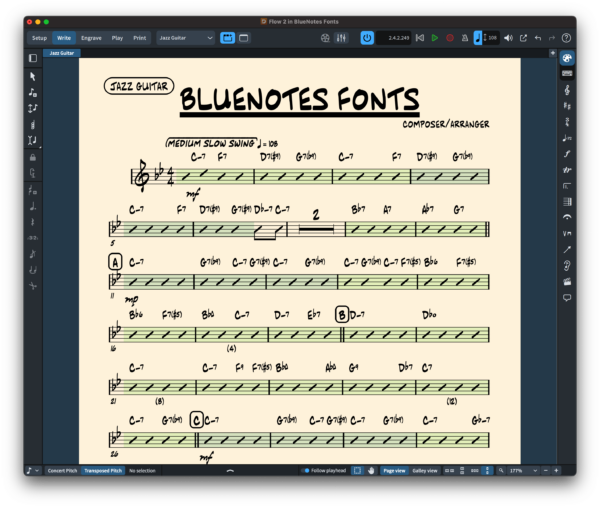
Meet BlueNotes: Handwritten SMuFL Fonts for Professional Jazz Scores
A bold handwritten music font package for Dorico, Finale v27+ and MuseScore 4.6+ — designed to bring the RussMusic-like spirit of classic West Coast copyists and Broadway jazz charts into modern notation workflows.
The Classic Jazz Copyist Look, Rebuilt for SMuFL
Some notation styles immediately say jazz. The slightly irregular lines, confident noteheads, boxed rehearsal marks, slashes, handwritten chord symbols and energetic text all work together to create a page that feels ready for the stand. BlueNotes was created for that world.
BlueNotes gives your scores the warm, practical and unmistakably handwritten character of classic Broadway and West Coast copyist notation while keeping the benefits of modern SMuFL engraving.
This is not just a decorative typeface. BlueNotes is a professional handwritten music font package for real notation work. It includes two compliant SMuFL music fonts and six matching jazzy text fonts, giving your music symbols and score text a consistent visual identity. For a more direct hand-copied jazz-chart style, compare RealScore handwritten music fonts.
BlueNotes SMuFL handwritten music font used in a jazz guitar chart
Example 1 — Jazz guitar chart. BlueNotes gives lead-sheet and rhythm-section notation a strong handwritten jazz identity with slashes, chord symbols, boxed letters and score text working together.
With more than 1400 music symbols and a RussMusic-like handwritten design, BlueNotes is especially useful when you want the feel of traditional jazz copywork without giving up the speed, accuracy and flexibility of Dorico, Finale or MuseScore.
8 Fonts for Professional Handwritten Jazz Scores
The BlueNotes package includes two SMuFL-compliant music fonts and six jazzy text fonts. That gives you a complete handwritten score language instead of a simple music-symbol replacement.
Music Fonts
BlueNotes & BlueNotes II
Two compliant SMuFL music fonts for modern notation software, including access to different treble-clef styles and a broad handwritten symbol set.
Text Fonts
6 Jazzy Text Fonts
Matching text fonts for titles, tempo markings, rehearsal marks, score directions, boxed text and other notation-related typography.
The result is a cohesive jazz page style where the notation, text and markings all feel like they belong to the same hand-copied score.
Example 2 — Rhythm-section score. BlueNotes II keeps full rhythm-section notation readable while preserving a lively handwritten texture across multiple staves.
Design Character
RussMusic-Like Energy with a West Coast Copyist Feel
BlueNotes was made for musicians who want scores that look alive. Its handwritten shapes are bold, immediate and practical, with the kind of page character associated with classic jazz charts, Broadway copying and West Coast studio preparation.
The goal is a score that feels hand-prepared, player-friendly and full of personality — but still clear enough for professional rehearsal and publishing use.
Because BlueNotes includes a large SMuFL symbol library, it can move beyond simple lead sheets into larger arrangements, rhythm-section parts, full scores and notation-heavy educational material.
BlueNotes handwritten SMuFL font shown in a Dorico full score view
Example 3 — Full-score environment. BlueNotes balances handwritten charm with the spacing and consistency needed for larger ensemble material.
Special Features
Boxed Texts and 4 Different Treble Clefs
BlueNotes is especially useful for jazz and commercial music because it supports the kind of boxed text and rehearsal markings that are part of the language of copied charts. The product also includes access to four different treble clefs, which can be selected through Dorico’s music symbol editing or Finale v27’s clef design options.
Boxed Text Styles
Create strong handwritten boxed indications for tempo text, rehearsal text and score instructions in Dorico and Finale v27.
4 Treble Clefs
Choose from multiple treble-clef personalities to better match the page character of the project.
Because the package includes both SMuFL music fonts and matching text fonts, BlueNotes can define the full visual personality of a score — not just the note symbols.